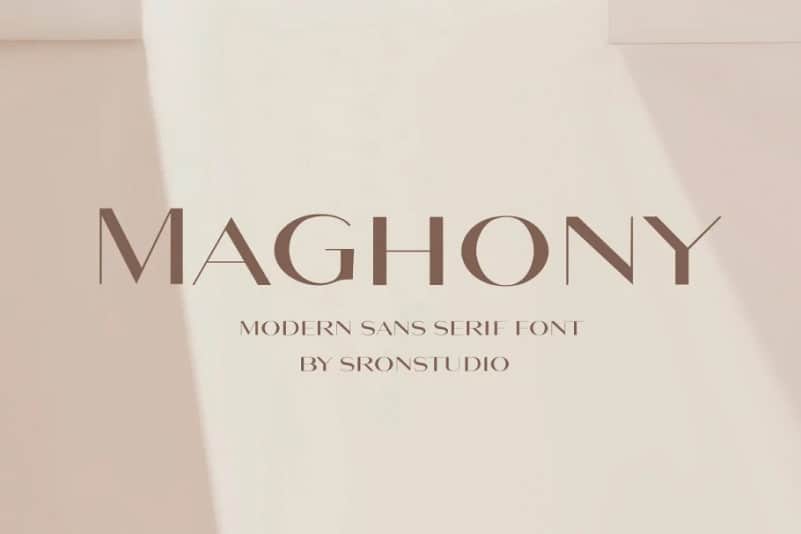
Maghony Font
Maghony Sans Serif Font
Maghony Sans Serif Font is a luxury and authentic sans serif font manufactured by Sronstudio. this font perfect for branding, invitation, stationery, wedding designs, social media posts, advertisements, product packaging, product designs, label, photography, watermark, special events, and more.